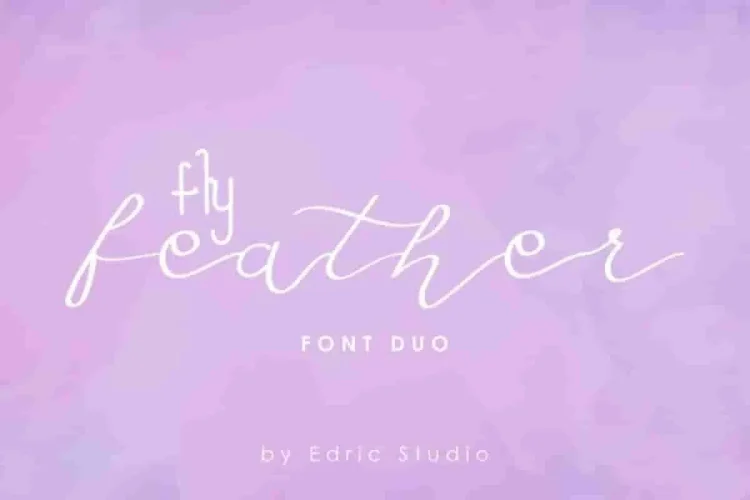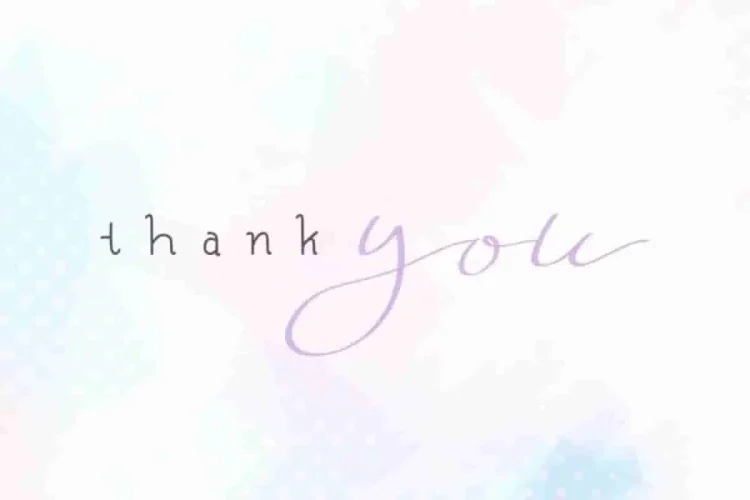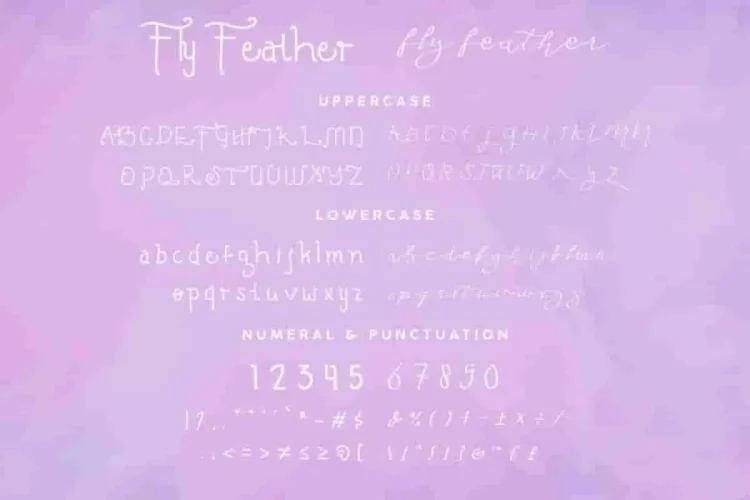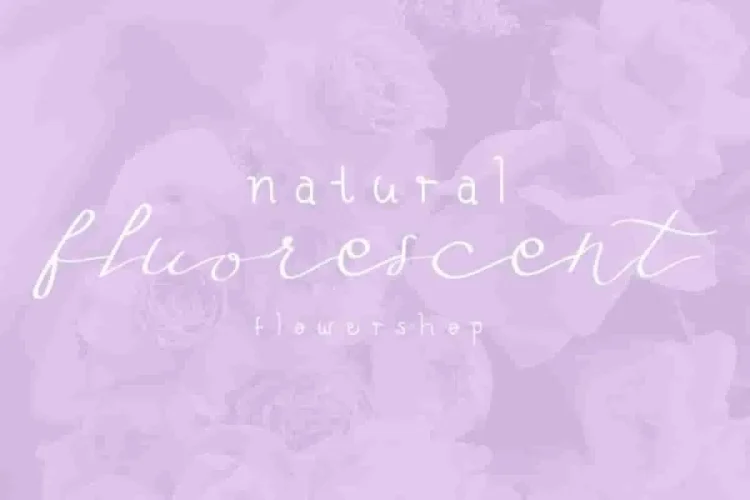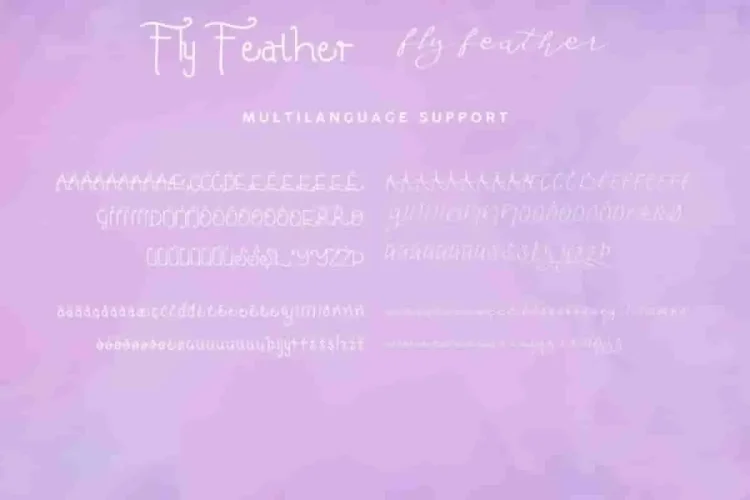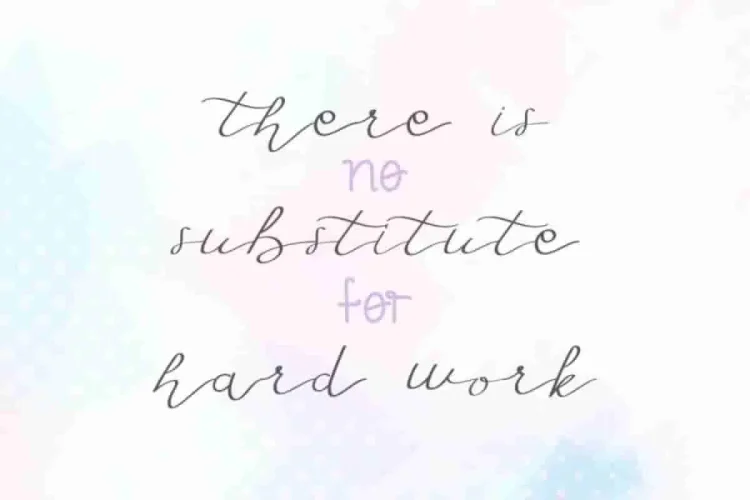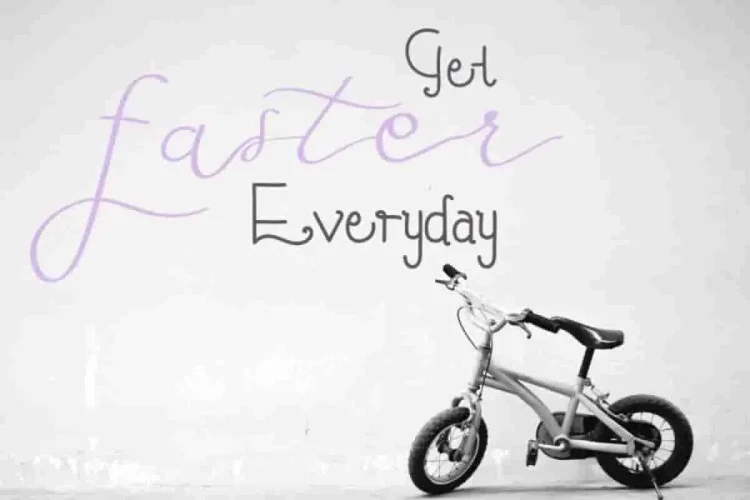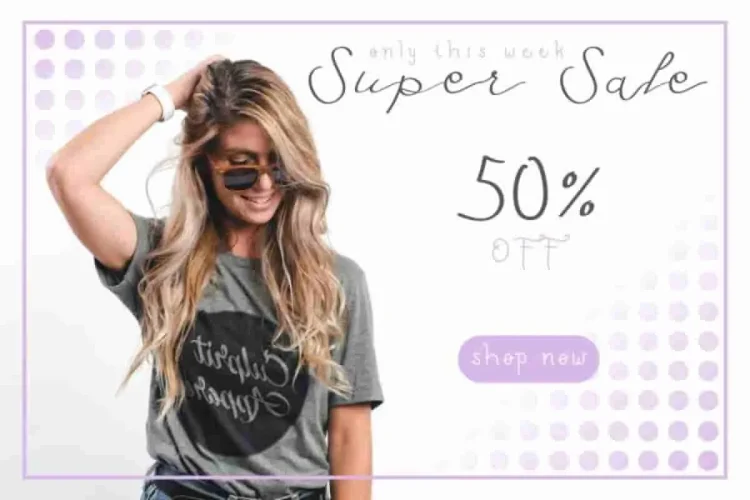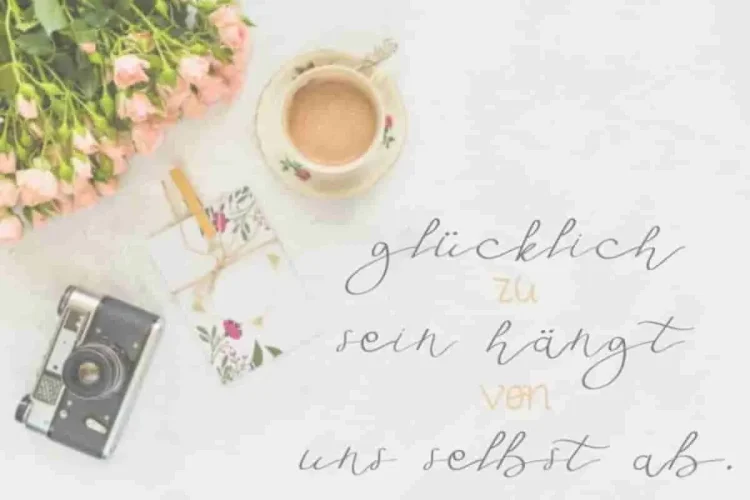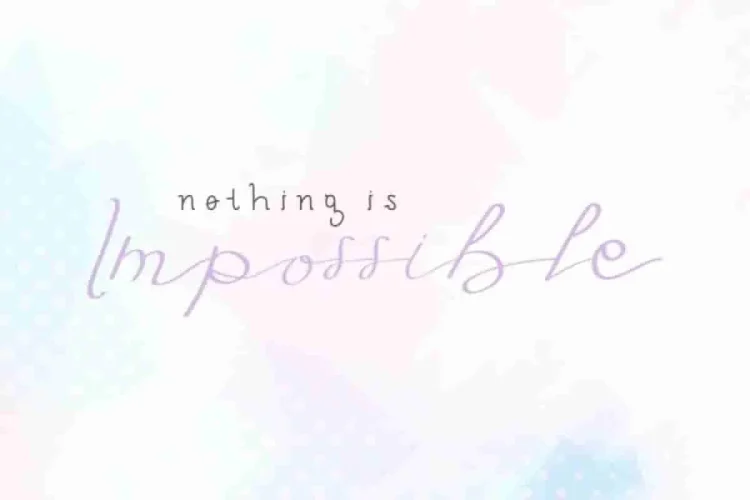
Fly Feather Font Family Duo
Fly Feather Demo Script
Fly Feather Demo Fancy
This is us again. Edric Studio. We are presenting to you : fly Feather Font Duo .
This is a font duo, contains two different styles : Sans and Script. All of fly Feather Font Duo styles will be awesome for any designs works. Works well for many industry clients : Music, law firm, lawyer, makeup artist, dentist, wedding, finance, etc
fly Feather Font Duo (with extended license) has a unique elegant styles that will be perfect for branding , logotype, stationery, card, signage, flyer, brochure etc.
fly Feather Font also support many international languages characters.